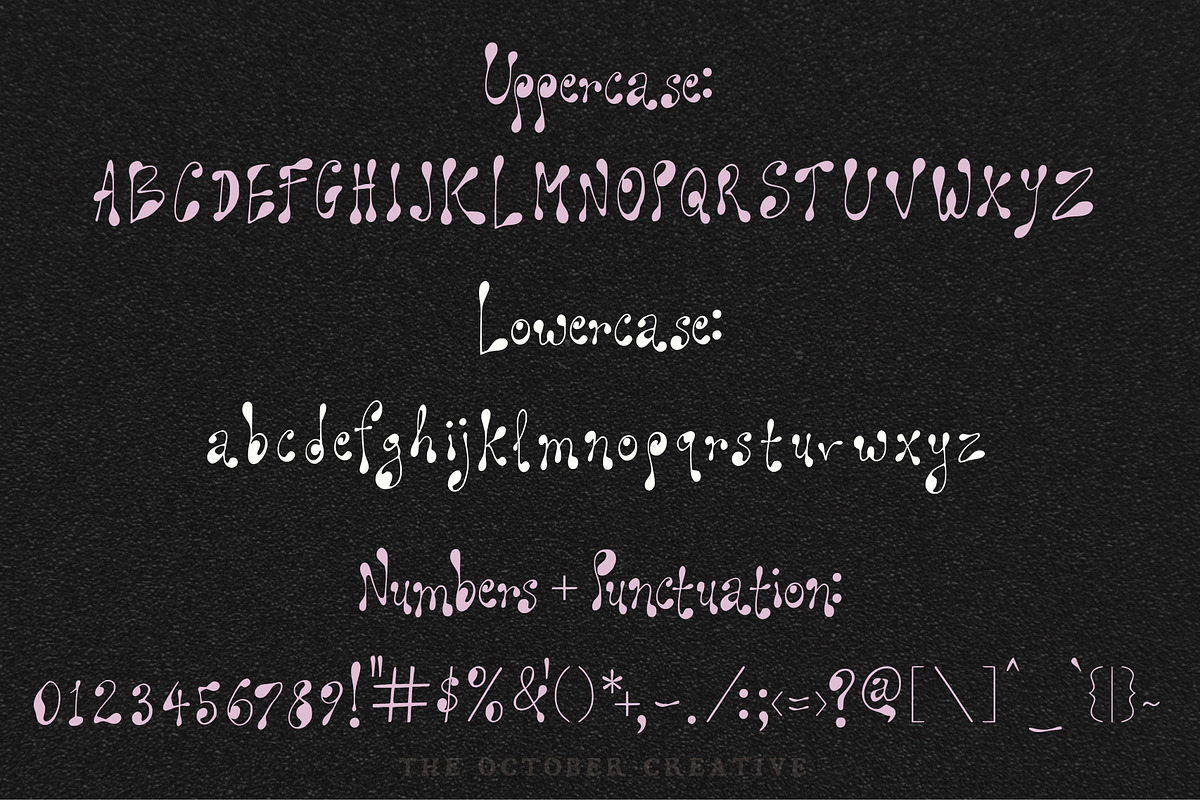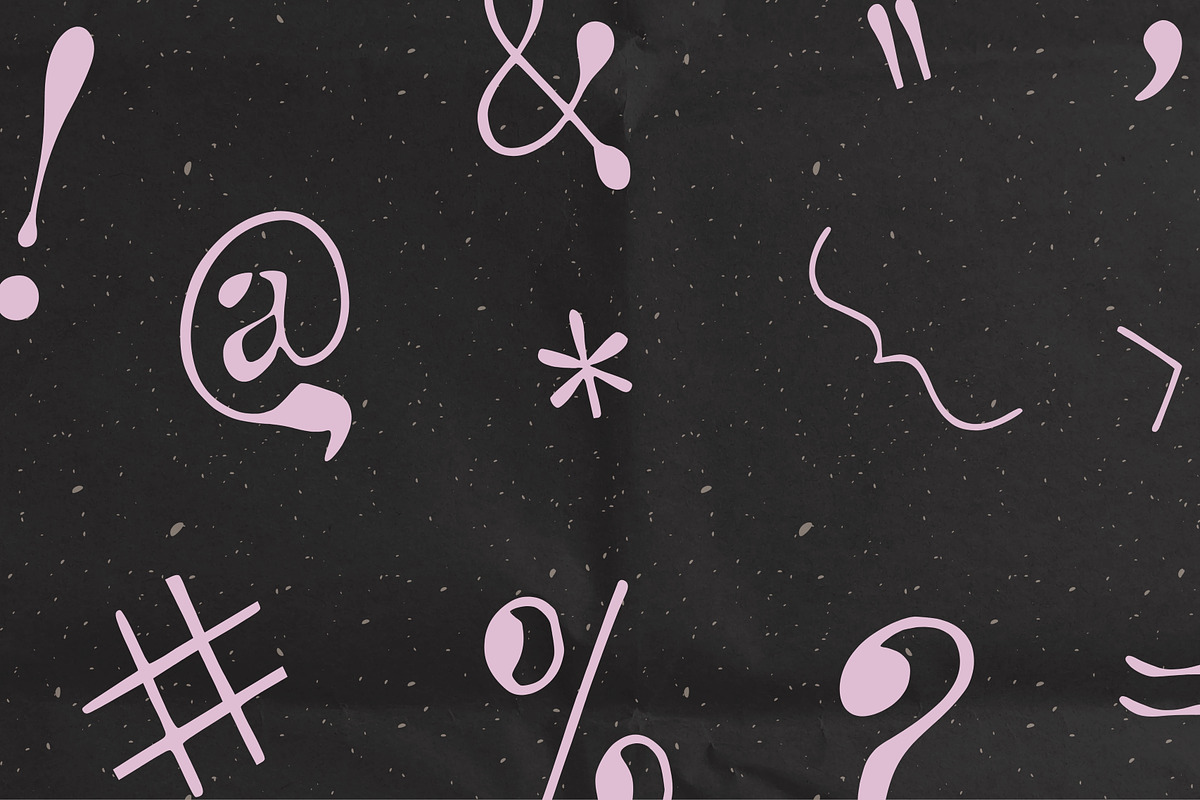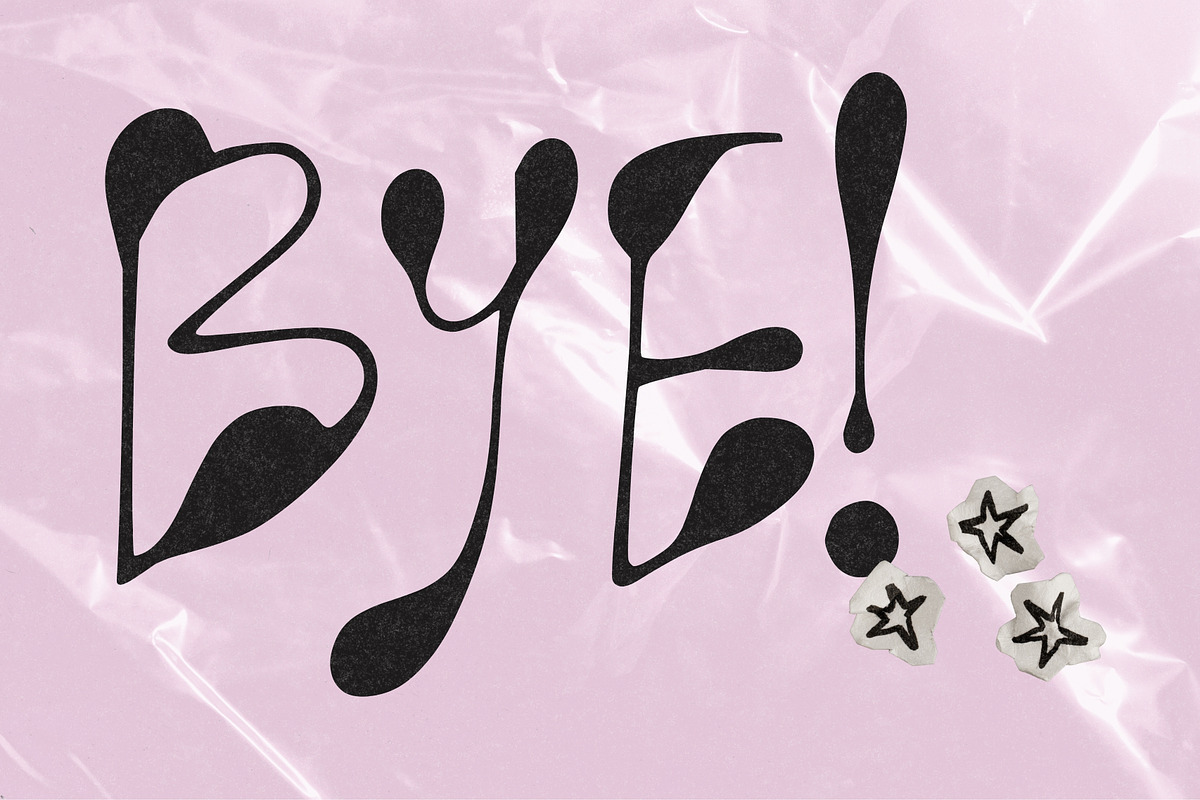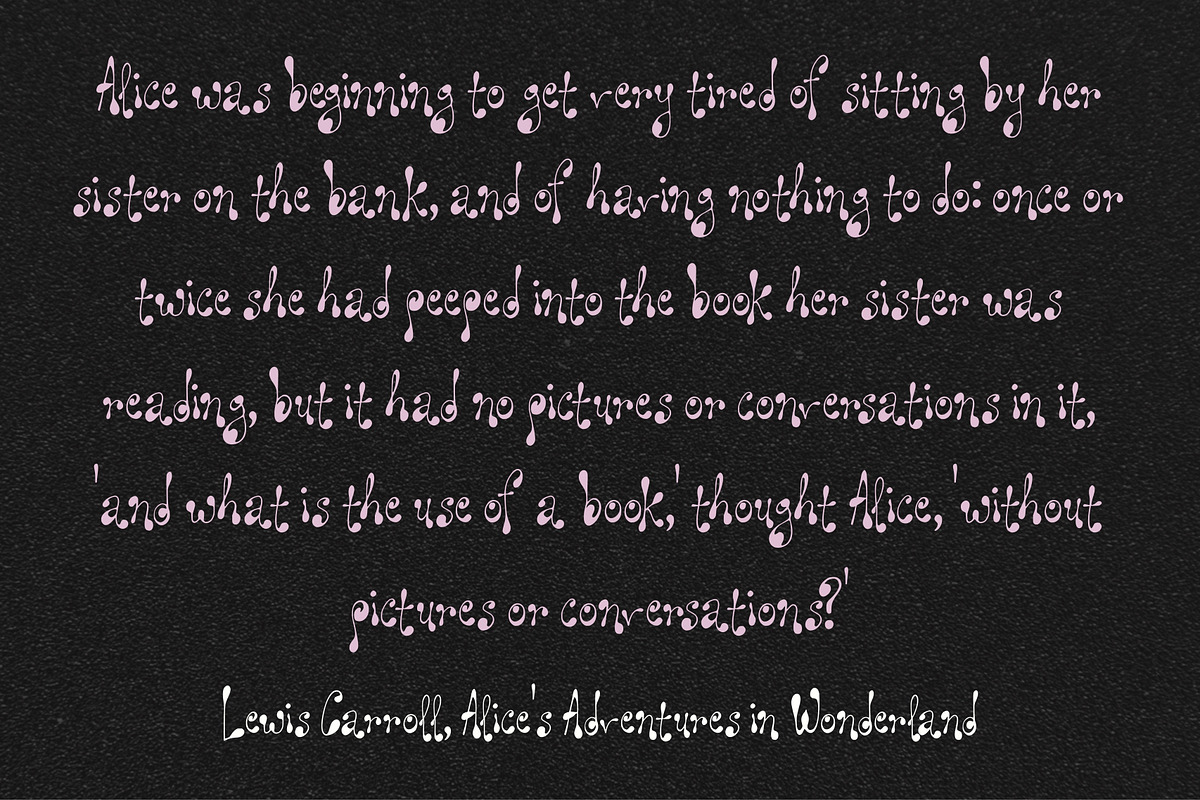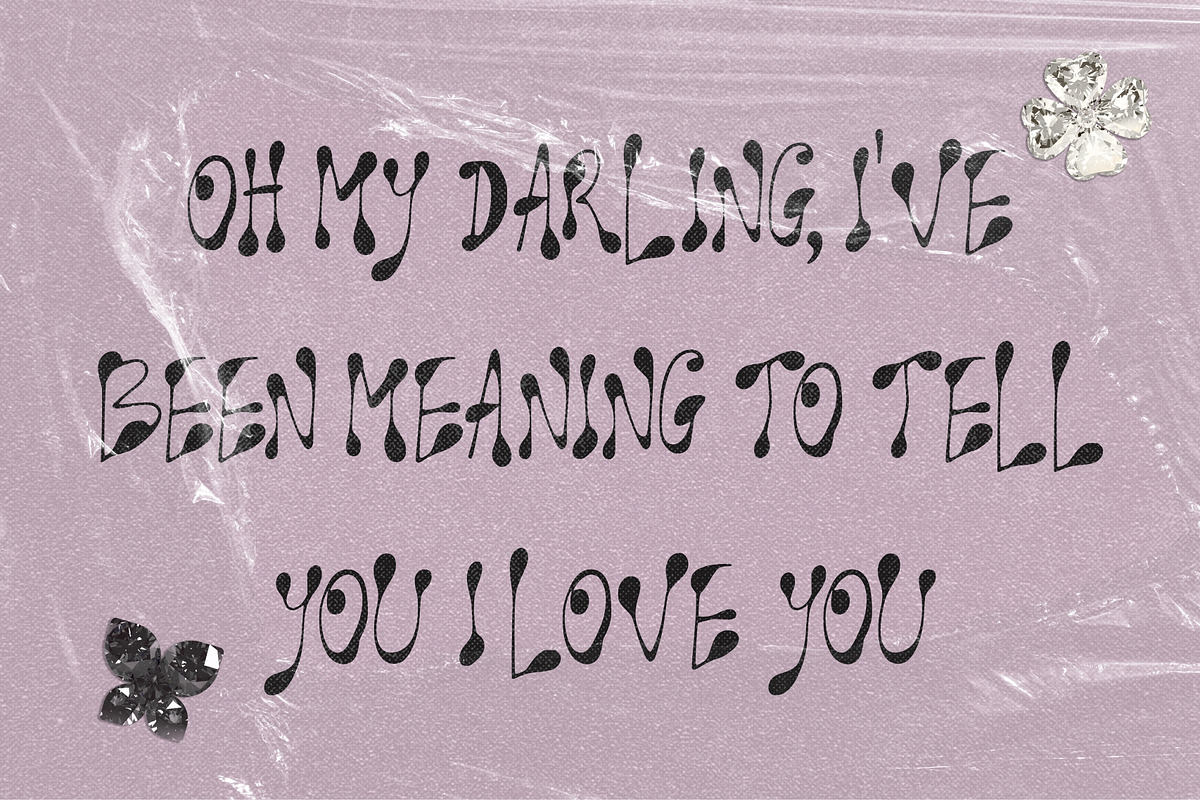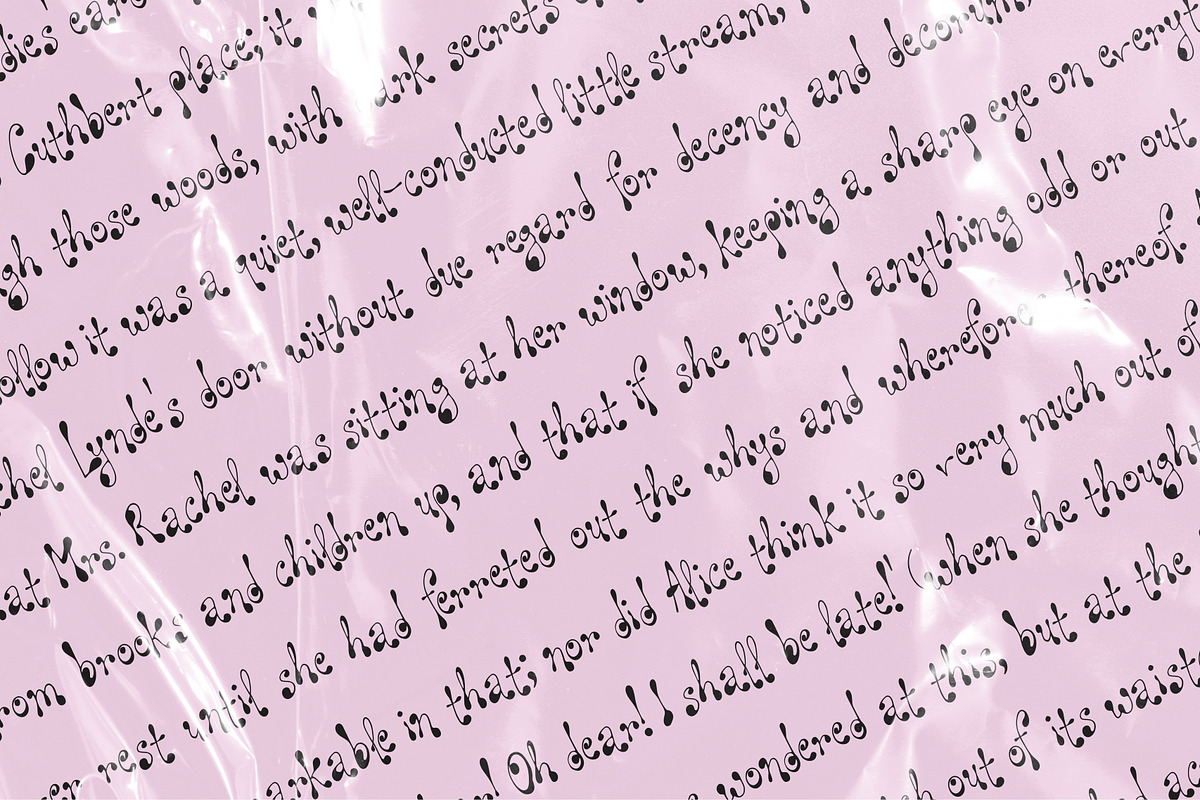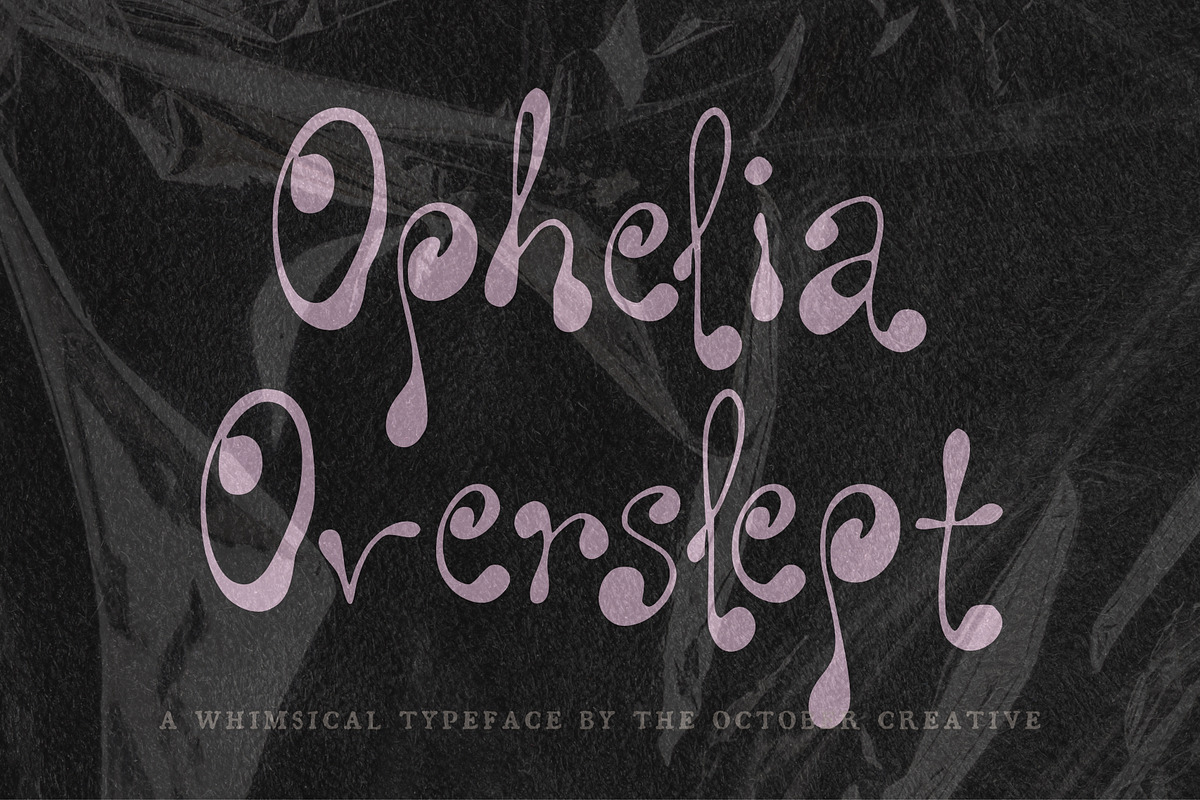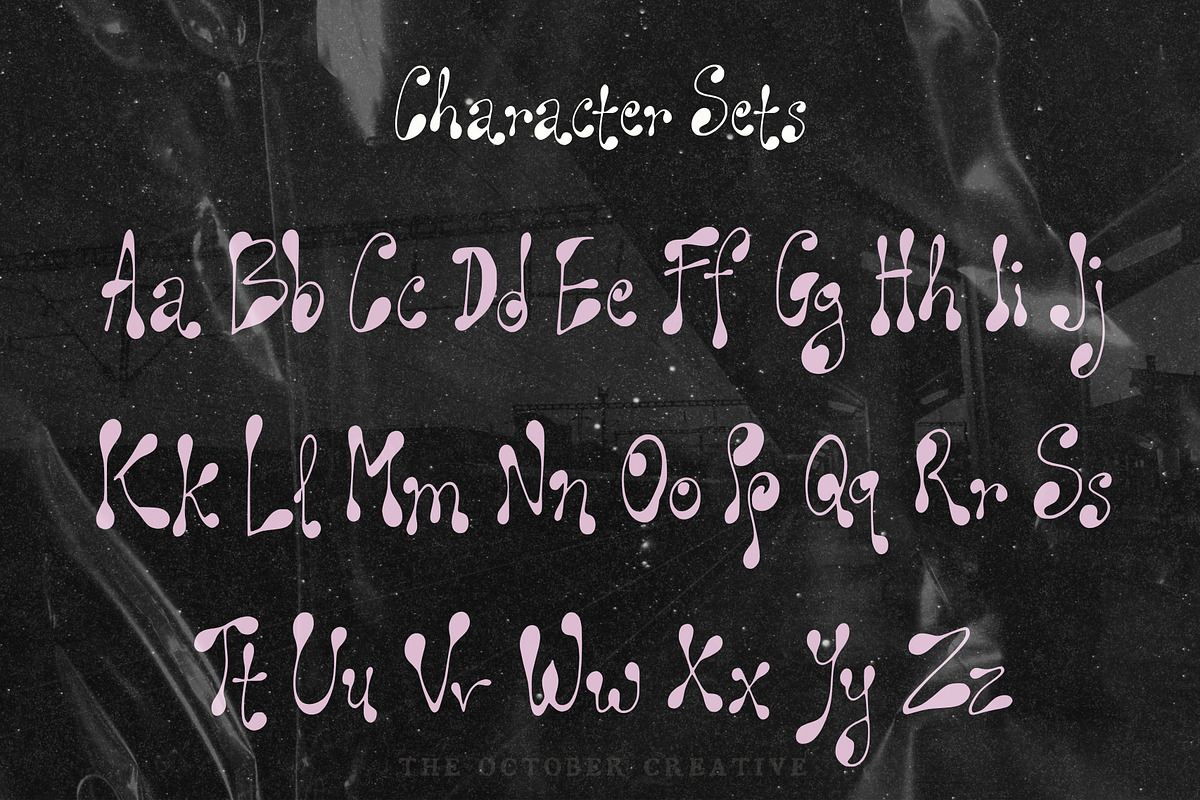
Ophelia Overslept Groovy Display
Ophelia Overslept is a groovy display font with bouncing seventies letters, curled ends, and swollen bowls. It fits album covers, gig posters, merch graphics, and retro brand headers.
CHARACTER SET
Uppercase A to Z, lowercase a to z, numerals 0 to 9, and every standard keyboard punctuation mark and symbol: ! " # $ % & ' ( ) * + , - . / : ; < = > ? @ [ \ ] ^ _ ` { | } \~
Curly quotes and apostrophes (‘ ’ “ ”), en and em dashes, an ellipsis, and a bullet.
Accented letters: À Á Â Ã Ä Å Ç È É Ê Ë Ì Í Î Ï Ñ Ò Ó Ô Õ Ö Ù Ú Û Ü and their lowercase forms.
LANGUAGES SUPPORTED
English, plus the accented vowels, Ñ, and Ç used in names and everyday words in Spanish, French, Italian, Portuguese, German, and Dutch. Not included: ß, Æ, Ø, Œ, and the upside-down ¿ and ¡.
SPECIAL CHARACTERS